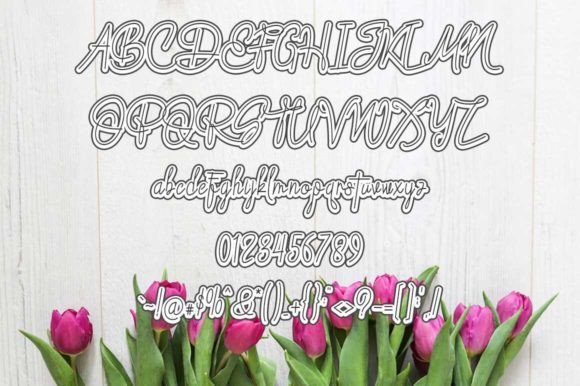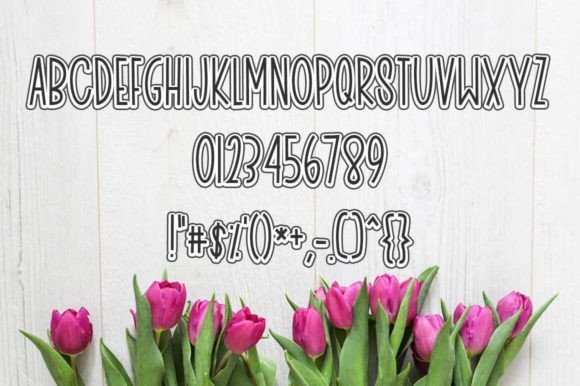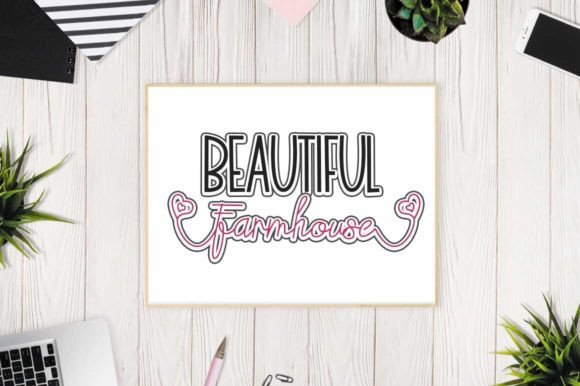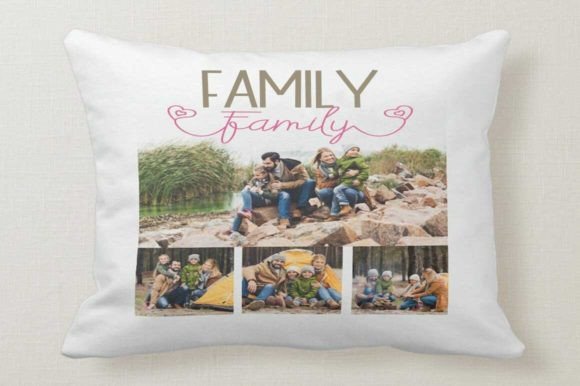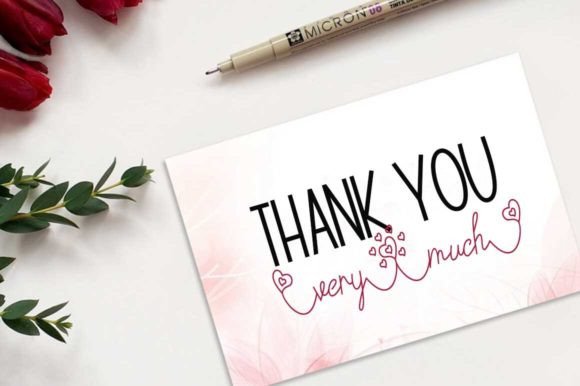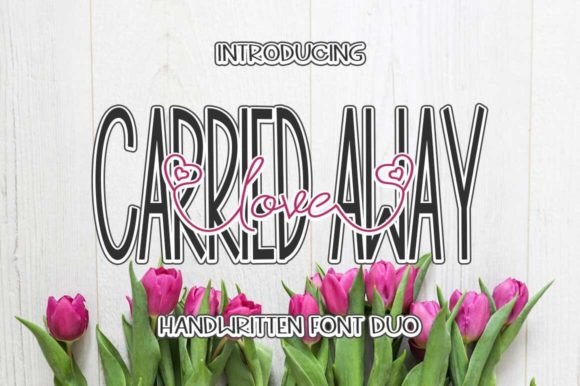
Carried Away Love Font: The Perfect Font Duo for Designers and Crafters
Are you tired of using the same old fonts for your designs? Look no further! Introducing Carried Away Love, a stunning font duo that will take your designs to the next level. This perfect pair consists of a handwritten signature font and an all-capital font that complements each other beautifully. In this article, we’ll explore the features and benefits of Carried Away Love and how you can use it to elevate your designs.
A Beautiful Handwritten Signature Font
The first font in the Carried Away Love duo is a gorgeous handwritten signature font that exudes elegance and sophistication. Its flowing lines and curves make it perfect for adding a personal touch to your designs. Whether you’re creating logos, magazines, Instagram quotes, or branding materials, this font is sure to impress. Its unique and distinctive style will set your designs apart from the rest and make them truly memorable.
An All-Capital Font to Complement It
The second font in the duo is an all-capital font that pairs perfectly with the handwritten signature font. Its bold and striking appearance makes it ideal for headlines, titles, and emphasis. The contrast between the two fonts creates a beautiful visual harmony that will make your designs stand out. You can use the all-capital font to add a touch of drama and flair to your designs, while the handwritten signature font adds a more personal and intimate feel.
One of the best features of Carried Away Love is that it’s PUA encoded. This means that you can access all the amazing glyphs and ligatures with ease. PUA encoding allows you to use the font’s built-in features, such as swashes, alternates, and ornaments, without having to install additional software or plugins. This makes it easy to customize your designs and add a unique touch to your text.
With Carried Away Love, the design possibilities are endless! You can use it for a wide range of projects, including:
- Magazines and editorials
- Instagram quotes and social media graphics
The font duo is versatile and can be used for both personal and commercial projects. Its flexibility and range make it a valuable addition to any designer’s or crafter’s toolkit.
Why Choose Carried Away Love?
So, why choose Carried Away Love over other font duos? Here are just a few reasons:
- Unique and distinctive style
- High-quality and legible
- Versatile and flexible
- Perfect for a wide range of design projects
Whether you’re a designer, crafter, or DIY enthusiast, Carried Away Love is the perfect font duo for you. Its unique style, high-quality, and versatility make it a valuable asset for any design project.
In conclusion, Carried Away Love is a stunning font duo that is perfect for designers and crafters. Its beautiful handwritten signature font and all-capital font pair perfectly together, creating a unique and distinctive style that will elevate your designs. With its PUA encoding and endless design possibilities, Carried Away Love is a valuable addition to any designer’s or crafter’s toolkit. So why wait? Get your hands on Carried Away Love today and take your designs to the next level!